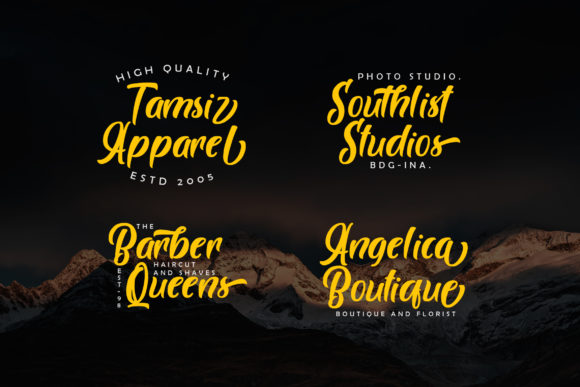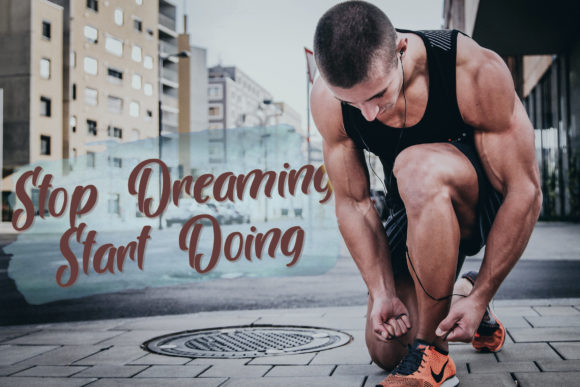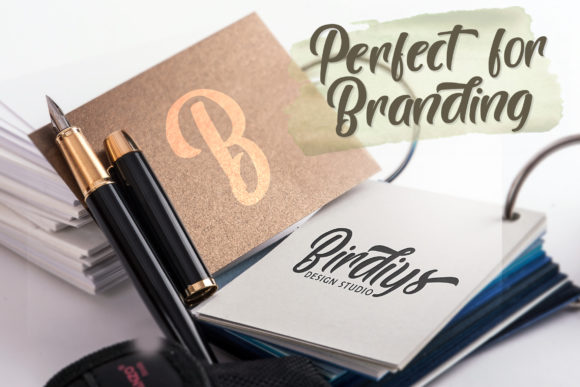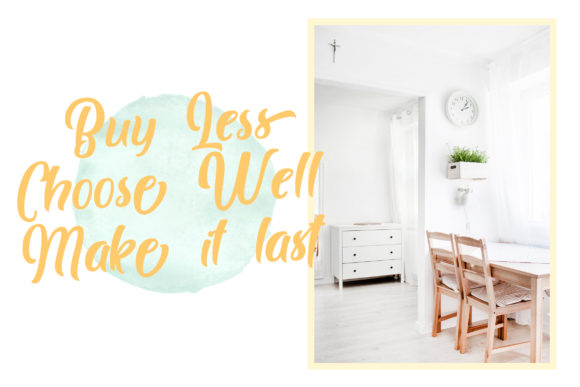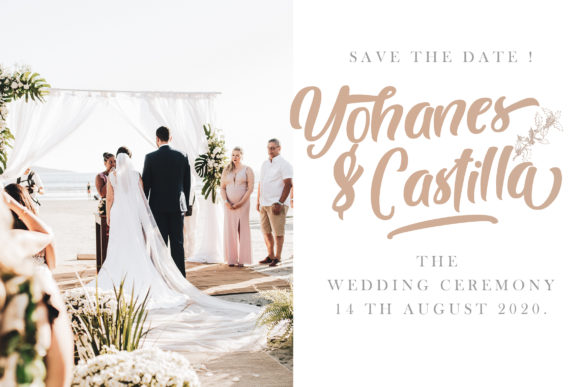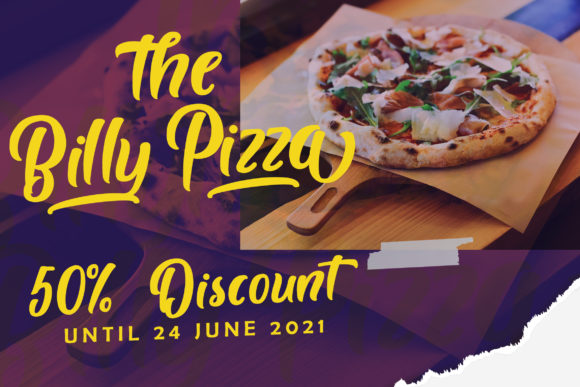
Brogads Font: Elevate Your Designs with Elegance and Authenticity
In the world of typography, fonts play a crucial role in conveying the tone and personality of a design. For designers and crafters seeking to add a touch of sophistication and elegance to their projects, Brogads Font is an exceptional choice. This magical script font is carefully crafted to blend timeless elegance with authentic calligraphy, making it perfect for creating original and outstanding designs.
The Unique Charm of Brogads Font
Brogads Font boasts an incredibly classic style that exudes refinement and poise. Its beautiful combination of traditional elegance and authentic calligraphy makes it an excellent addition to any design project. Whether you’re working on a logo, branding materials, or creative crafts, Brogads Font is sure to impress. Its friendly feel ensures that your designs remain approachable and engaging, making it an ideal choice for a wide range of applications.
Key Features of Brogads Font
- Timeless Elegance: Brogads Font features a classic style that never goes out of fashion, ensuring your designs remain sophisticated and elegant.
- Authentic Calligraphy: The font’s authentic calligraphy elements add a touch of warmth and personality to your designs, making them more engaging and relatable.
- Friendly Feel: Despite its classic style, Brogads Font maintains a friendly and approachable tone, perfect for designs that require a personal touch.
- Versatility: Brogads Font is suitable for a wide range of design projects, from logos and branding materials to creative crafts and digital art.
Why Choose Brogads Font?
With so many fonts available, why choose Brogads Font for your design projects? Here are a few compelling reasons:
- Unique Style: Brogads Font offers a distinctive style that sets it apart from more common fonts, ensuring your designs stand out from the crowd.
- Ease of Use: The font is easy to read and works well in various sizes, making it perfect for both digital and print applications.
- High-Quality Design: Brogads Font is carefully crafted to provide a high-quality design that reflects your professionalism and attention to detail.
Using Brogads Font in Your Designs
Integrating Brogads Font into your design projects is straightforward. Here are some tips to get you started:
- Pair it with Other Fonts: Combine Brogads Font with complementary fonts to create visual interest and hierarchy in your designs.
- Experiment with Colors: Brogads Font looks stunning in a variety of colors. Experiment with different hues to find the perfect match for your design.
- Play with Sizes: Use Brogads Font in various sizes to create emphasis and add depth to your designs.
Brogads Font is a magical script font that offers the perfect blend of timeless elegance and authentic calligraphy. Its classic style, friendly feel, and versatility make it an excellent choice for designers and crafters seeking to create original and outstanding designs. Whether you’re working on a logo, branding materials, or creative crafts, Brogads Font is sure to elevate your designs to the next level. So why wait? Discover the unique charm of Brogads Font and take your designs to new heights.